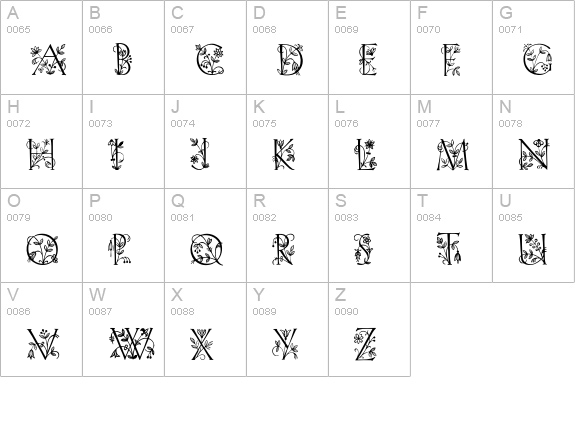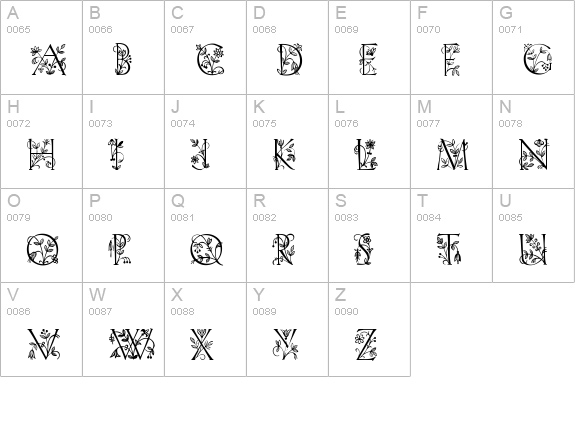
Lilith-Initials Font Details
Lilith-Initials font is a stunning display typeface that exudes elegance and sophistication. With its intricate and ornate letterforms, this font is perfect for adding a touch of luxury to your design projects. Its intricate details and stylish swashes make it a standout choice for anything from invitations to branding materials. The best part? Lilith-Initials font is completely free to download at FontsMarket.com. That's right, you can elevate your designs with this exquisite font without spending a penny. Whether you're working on a wedding invitation, a logo, or any other creative project, Lilith-Initials font is sure to make a lasting impression. Download it today and take your designs to the next level!